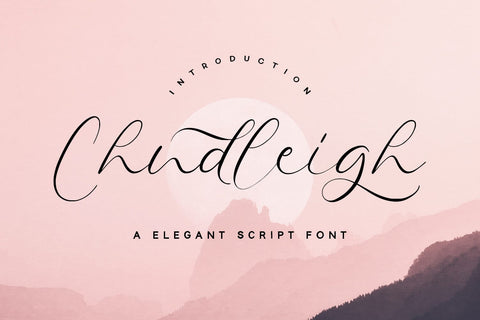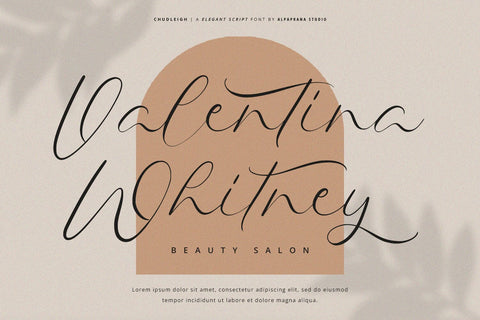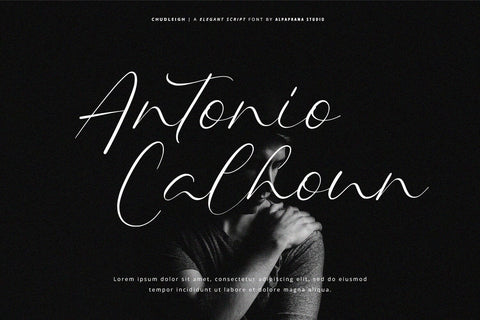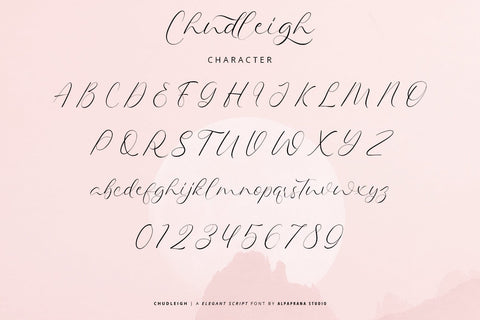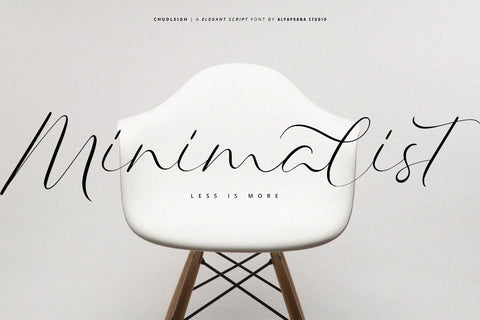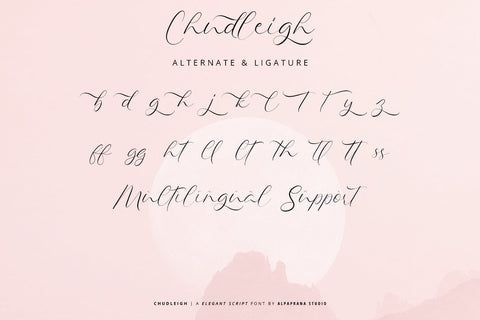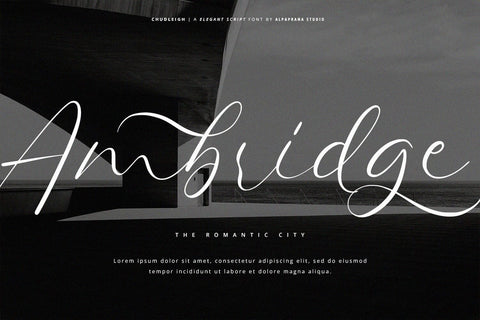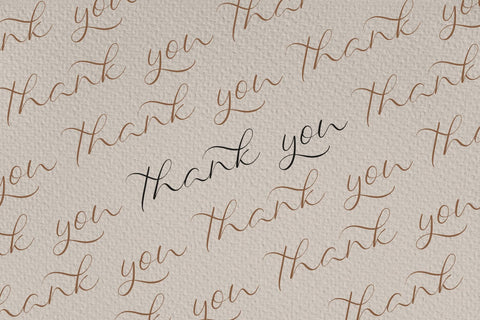
Chudleigh - Script Font
Chudleigh is a elegan script font with natural and modern feels. It will be perfectly used for Branding, Logo Design, Lettering, Logotype, Clothing, Poster, magazine, packaging, posters, shopping bags, t-shirts, book covers, photography, special events and other design project.